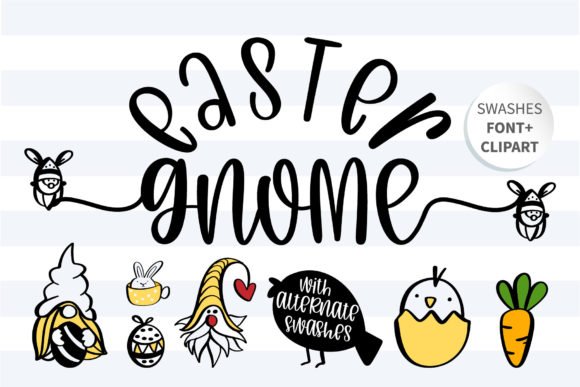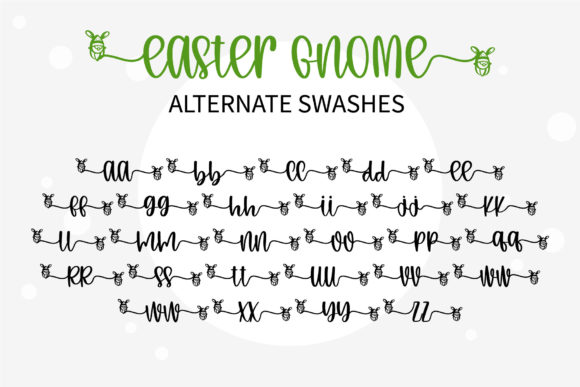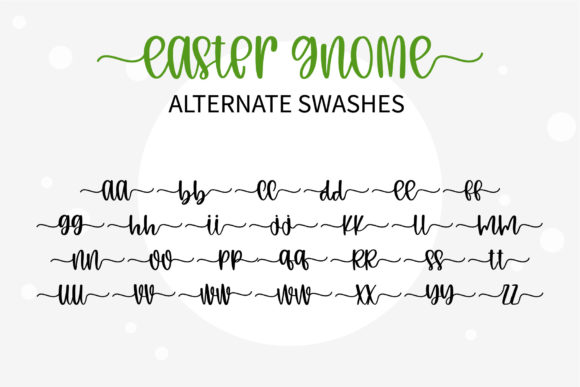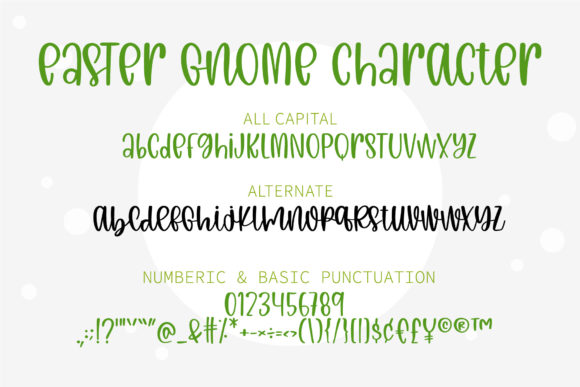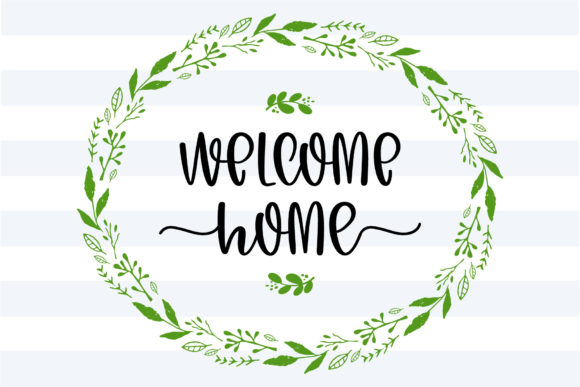
The Perfect Springtime Touch: Easter Gnome Font
It’s that time of year again – the sun is shining, the flowers are blooming, and Easter is just around the corner. As a designer, I love this season for the opportunity to infuse my work with a sense of whimsy and joy. There’s something special about adding a touch of springtime magic to my projects, and that’s exactly what the Easter Gnome Font does.
This charming font is the perfect addition to any design that needs a little pick-me-up. With its sweet and full of life style, the Easter Gnome Font is sure to brighten up even the most mundane projects. And with its PUA encoding, you’ll have access to all of the glyphs and swashes you need to create truly unique designs.
- Unique Characteristics: Hand-drawn illustrations, intricate details, and a whimsical feel
Easter Gnome Font Review
At first glance, the Easter Gnome Font is a playful and whimsical addition to any design project. ✨ The font’s use of Easter-inspired elements such as eggs, bunnies, and flowers creates a lighthearted and festive atmosphere, perfect for spring and Easter-themed designs. ✨ The font’s bold and vibrant colors also make it stand out and add a pop of fun to any project.
However, there are some limitations to consider. ⚠️ The font’s complexity and intricate design elements may make it challenging to use in certain contexts, such as body text or headlines where a simpler font is needed. ⚠️ Additionally, the font’s Easter theme may be too seasonal or niche for some designers, limiting its versatility.
What I Like:
- Playful and whimsical design elements
- Bold and vibrant colors
- Perfect for spring and Easter-themed designs
What I Don’t Like:
- Complex and intricate design elements
- Limited versatility due to seasonal theme
- Not suitable for all design contexts
Overall, the Easter Gnome Font is a fun and creative addition to any design project that requires a playful touch. While it may have some limitations, its unique design elements and bold colors make it a great choice for the right project.
Getting the Most Out of the Easter Gnome Font
For the best results, use the Easter Gnome Font in combination with other festive elements, such as Easter eggs, bunnies, and spring flowers. Experiment with different font sizes and colors to create a visually appealing design. Don’t forget to check the font’s licensing terms to ensure you’re using it correctly.
The Easter Gnome Font is perfect for creating Easter-themed designs, such as invitations, greeting cards, and social media graphics. It’s also great for adding a playful touch to spring-themed designs, like party decorations and promotional materials.